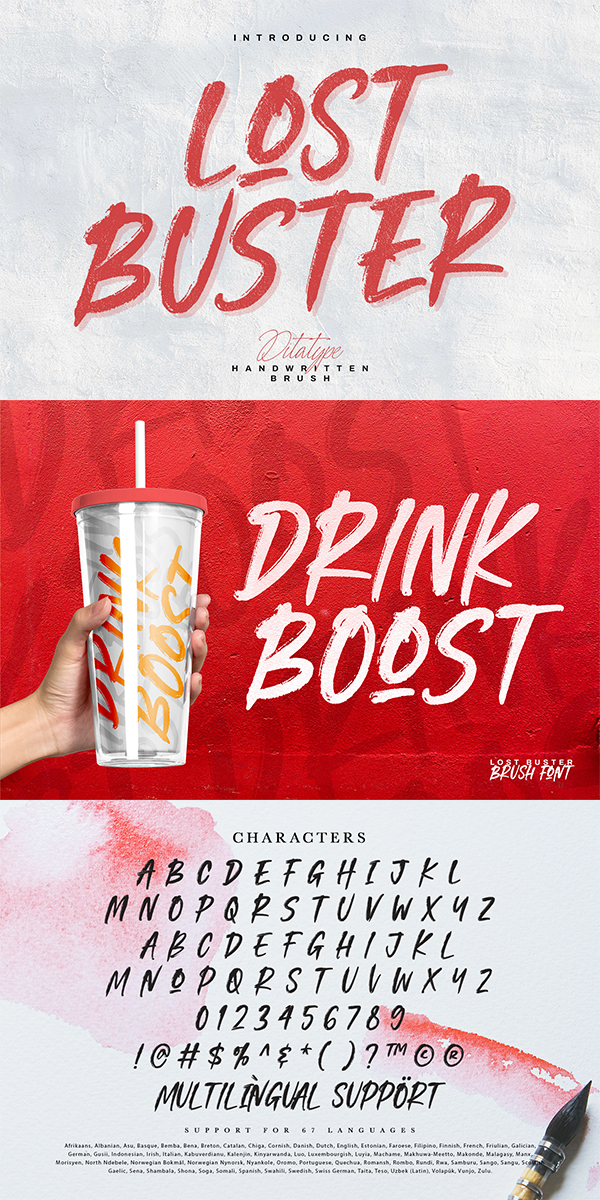
Lost Buster Font
About Lost Buster
Lost Buster is a capitalized handwritten font in brush details to produce a manual brush-looking display adding creativity values to designs with this font. It also gives more personal, natural impressions to make people feel close to the brand or design displayed. The advantages of a brush-detailed handwritten font are first, the unique display to get the brand or the design easily remembered and noticed, and second, legible, applicable for various media. You can also apply this font for various text sizes for its legibility reason and enjoy the available features here.
Lost Buster fits best for various design projects, such as brandings, posters, banners, headings, magazine covers, quotes, printed products, merchandise, social media, etc. Find out more ways to use this font by taking a look at the font preview.